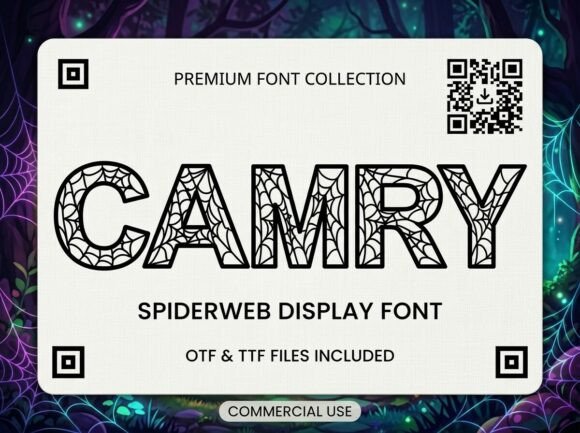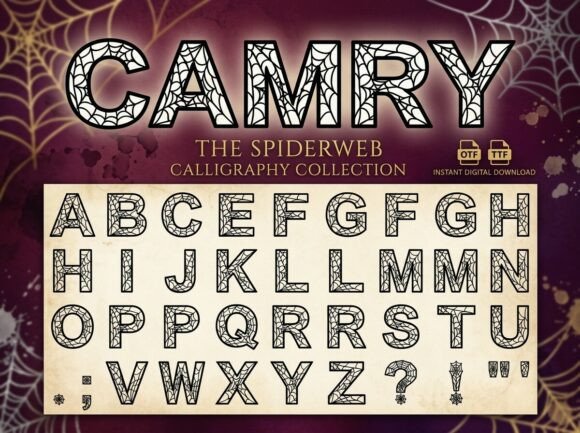
Unleash the Spooky Charm with Camry Font: A Captivating Display Typeface
In the world of typography, few fonts have managed to capture the essence of the “spooky-and-intricate” soul as effectively as Camry. This bold, geometric display typeface is a masterclass in design, featuring dense, rhythmic spiderweb patterns that will leave you spellbound. Whether you’re a designer, crafter, or simply a fan of the eerie and unknown, Camry is the perfect choice for your next project.
The Anatomy of Camry
Camry’s design is a symphony of contrasting elements. At its core, the font features clean, high-contrast outlines that provide a sense of sophistication and elegance. However, it’s the intricate spiderweb patterns that fill each letterform that truly set Camry apart. These dense, rhythmic designs add a level of complexity and visual interest that’s hard to find in other typefaces.
The geometric letterforms themselves are bold and imposing, making Camry perfect for headlines, titles, and other display text. The font’s striking graphic weight is both eye-catching and mesmerizing, drawing the viewer in with an otherworldly allure.
Perfect for Spooky and Dark Themes
Camry’s eerie personality makes it the perfect choice for a wide range of spooky and dark-themed projects. Here are just a few ideas to get you started:
- Independent Halloween event branding: Create eye-catching posters, flyers, and social media headers that will draw in thrill-seekers and partygoers alike.
- Dark fantasy book covers: Add a touch of mystery and intrigue to your book covers with Camry’s haunting, atmospheric letterforms.
- Themed escape room signage: Create an immersive experience for your escape room participants with Camry’s spooky, web-like designs.
- Social media headers: Stand out from the crowd with Camry’s bold, wicked-and-wonderful typography.
Why Choose Camry?
So why choose Camry over other display typefaces? Here are just a few reasons:
- Unique design: Camry’s spiderweb patterns and geometric letterforms make it a true one-of-a-kind.
- High-impact: Camry’s bold, striking design is perfect for grabbing attention and making a statement.
- Versatile: Whether you’re designing for print or digital, Camry is the perfect choice for a wide range of projects.
Tips for Using Camry
Here are a few tips for getting the most out of Camry:
- Experiment with colors: Try pairing Camry with bold, bright colors to create a truly eye-catching design.
- Play with textures: Add an extra layer of depth and interest to your design with textures and patterns.
- Keep it simple: Don’t be afraid to use Camry as a statement piece – its bold design can stand on its own.
Camry is more than just a font – it’s an experience. With its captivating, spooky-and-intricate design, Camry is the perfect choice for designers and crafters looking to add a touch of mystery and intrigue to their projects. Whether you’re creating independent Halloween event branding, dark fantasy book covers, or simply looking for a bold, eye-catching typeface, Camry is the premier choice. So why wait? Spin a web of intrigue with Camry and unleash the spooky charm in your designs.